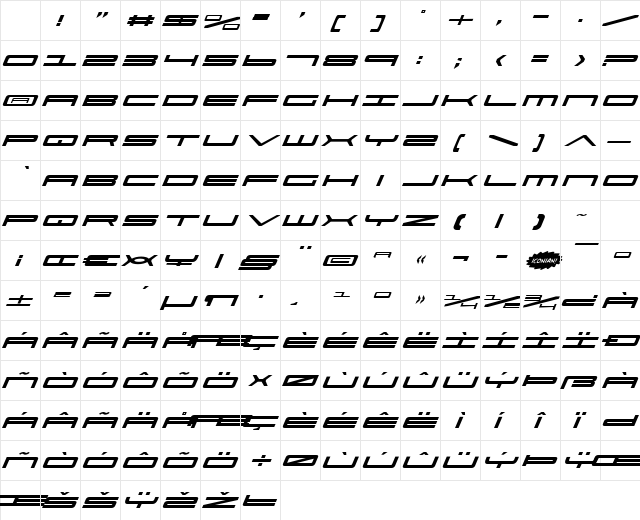
Complete Ultra 911 Italic glyph index. Displaying only characters natively supported by Ultra 911 Italic font.
Ultra 911 is a composed and adaptable typeface that performs quietly and consistently across a wide range of design contexts. The slanted form adds forward momentum and visual energy.